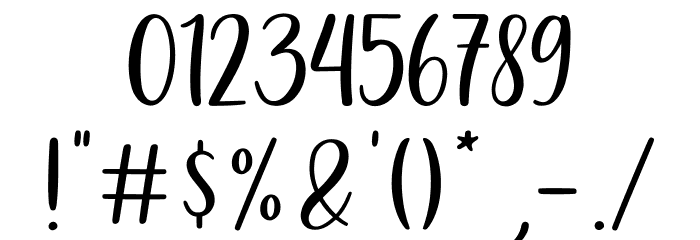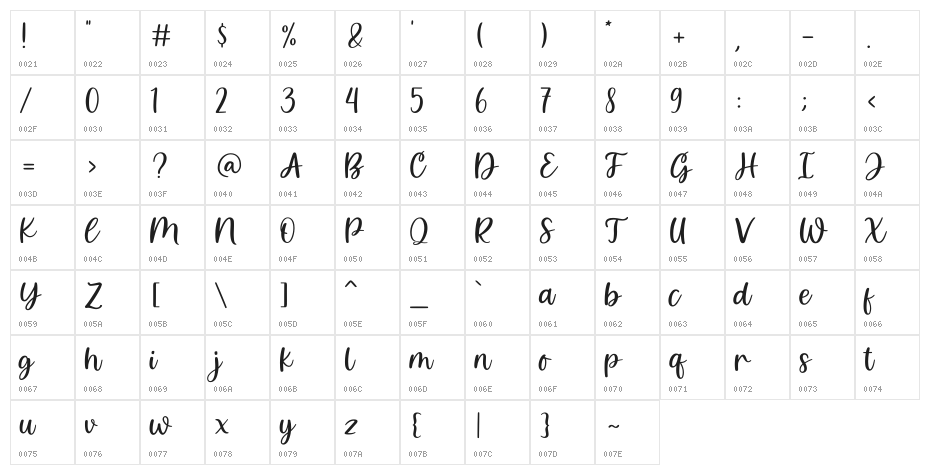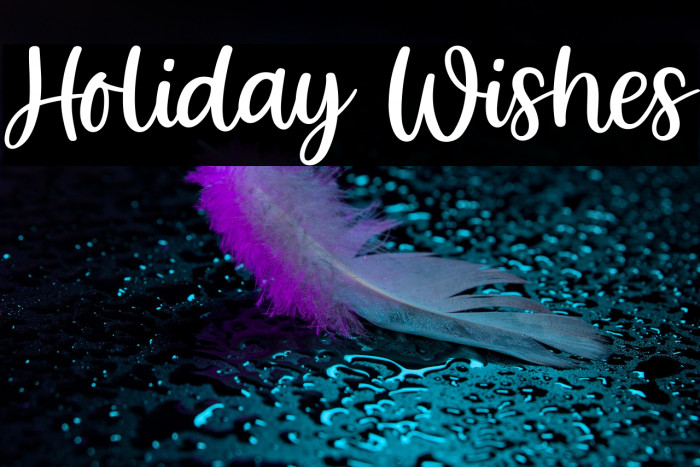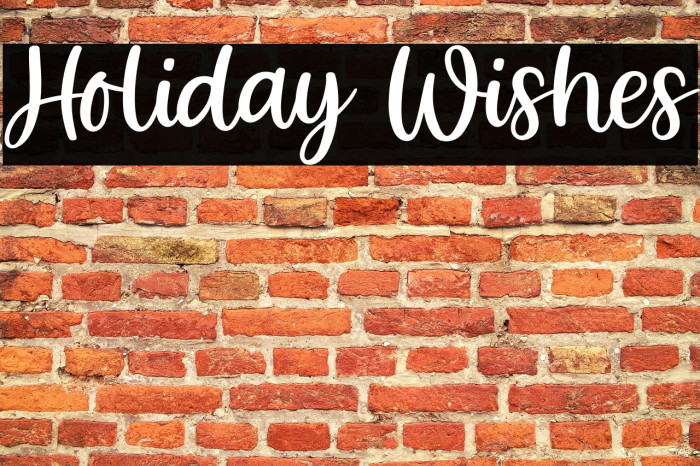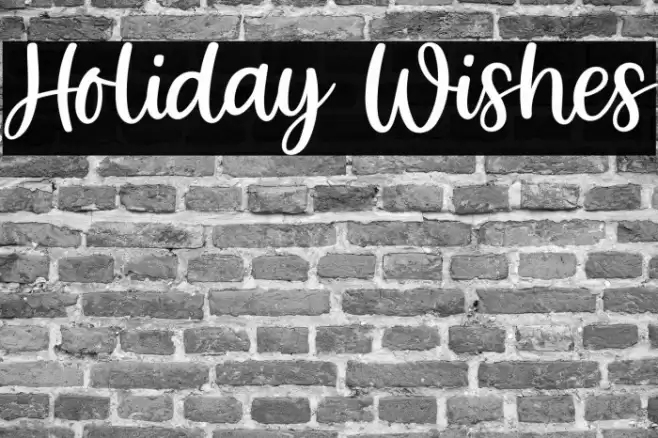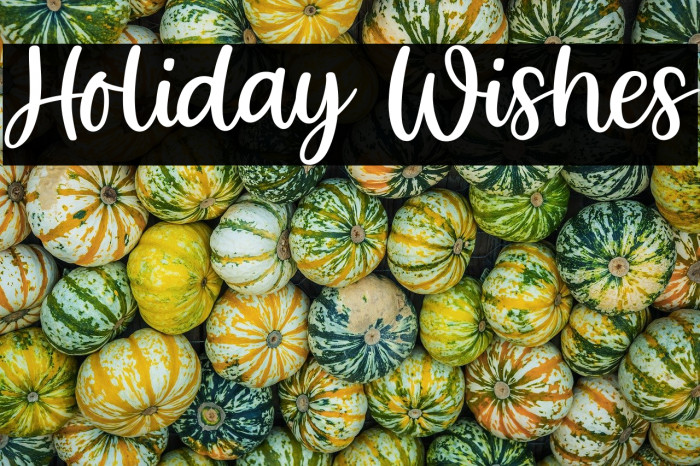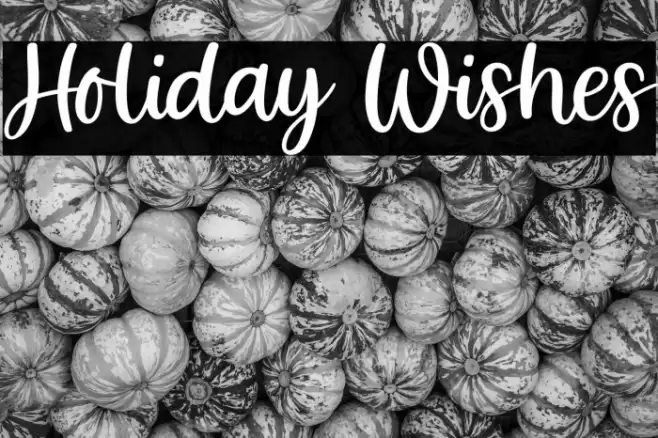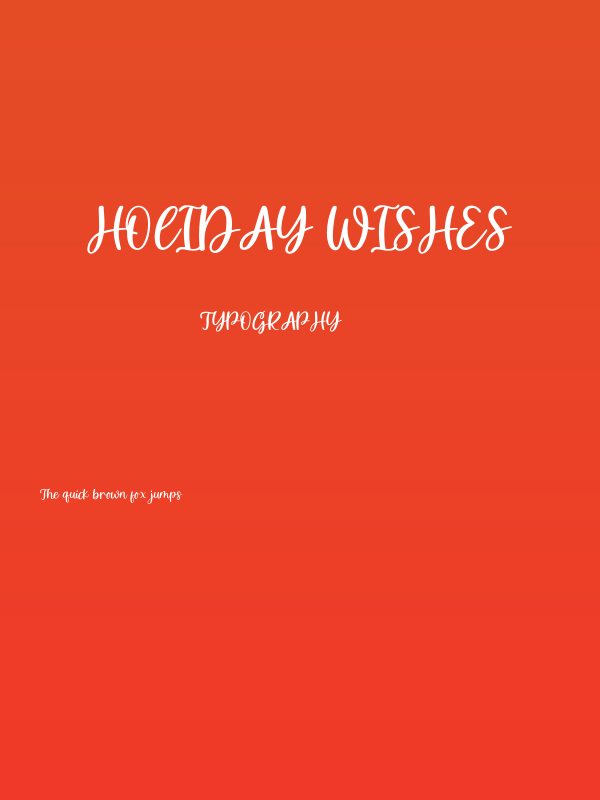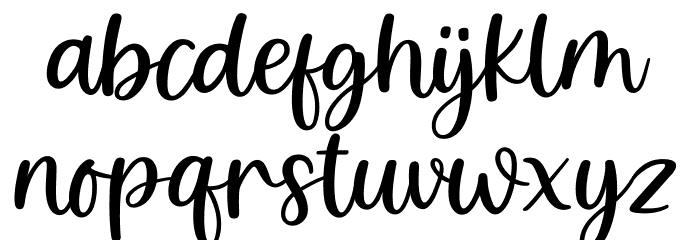
Holiday Wishes Font
Holiday Wishes Description
This font exudes a playful and festive charm, characterized by its flowing, cursive style. The letters are connected in a smooth, continuous manner, giving it a handwritten appearance. The uppercase letters are bold and slightly larger, while the lowercase letters maintain a consistent flow. The numbers and special characters are crafted to match the whimsical style, making them suitable for creative and decorative uses. The overall look is lively and energetic, perfect for adding a personal touch to any project.
| Proposed Projects | Ideal for holiday cards, invitations, festive banners, and personalized gifts. |